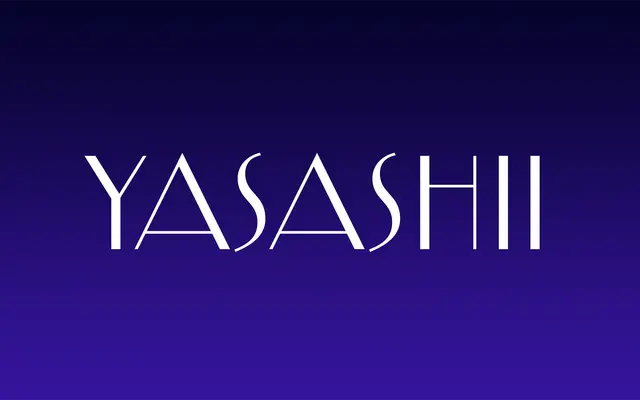
Yasashii specimen from Dharma Type
An Art Deco display face drawing on Japanese cosmetic packaging and poster lettering from the late 19th and early 20th centuries.
Rooted in the decorative lettering found on Japanese cosmetics and posters of the Meiji and Taisho eras, Yasashii pairs geometric structure with delicate detailing characteristic of Art Deco design. The result sits somewhere between the formal rigidity of Western Art Deco and the refined ornamental sensibility of Japanese commercial art. Well suited to branding, packaging and editorial work where a sense of period elegance is required.
An Art Deco display typeface drawing on Japanese cosmetic packaging and poster lettering from the late 19th to early 20th century; the decorative, structured character places it firmly in the display category with an art deco subcategory.